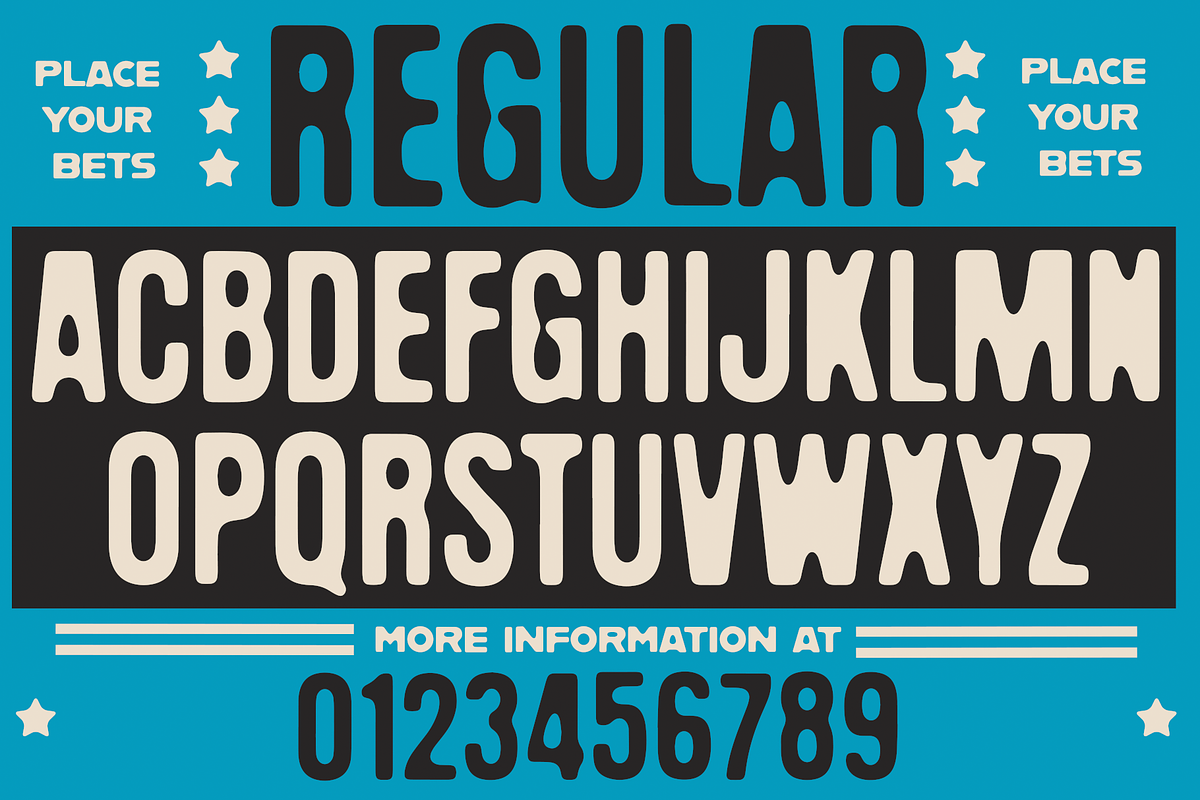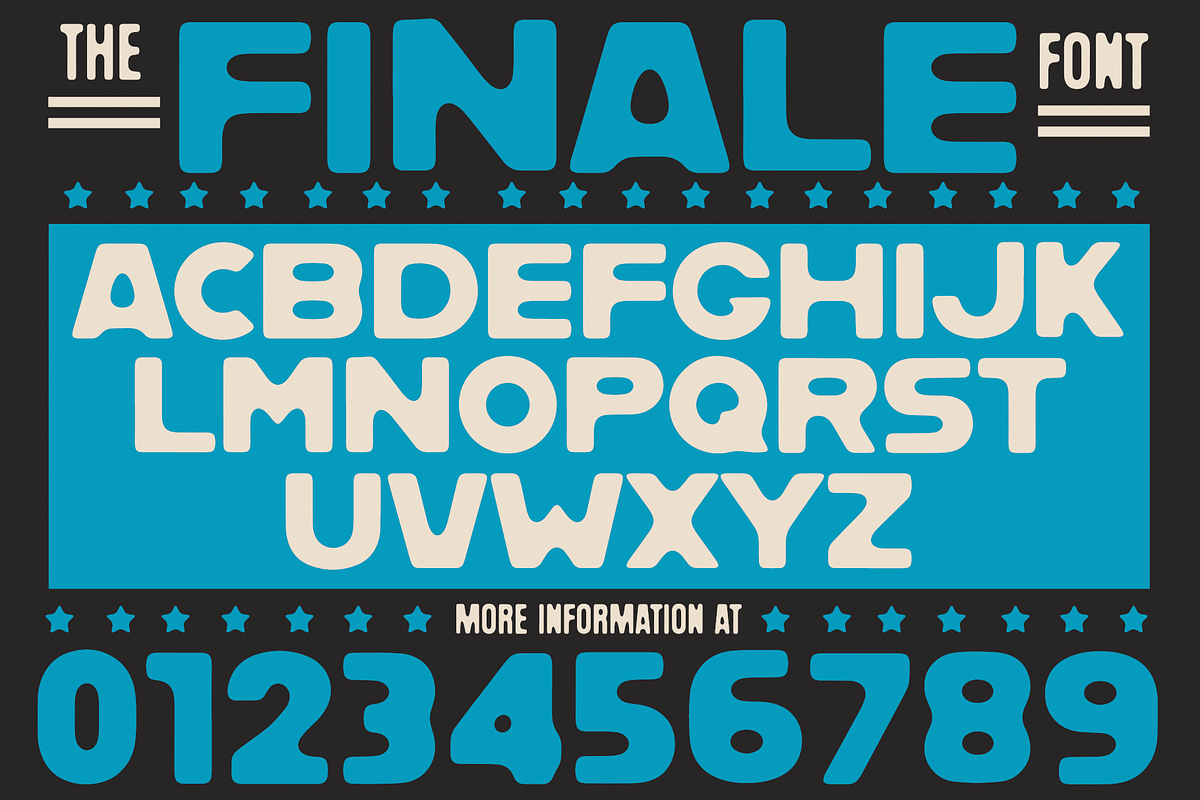
Introducing Knockout — the heavyweight champion of display fonts. Bold, powerful, and ready to deliver a visual punch, Knockout packs a punch with every character. Whether it’s posters, headlines, or branding, this font is here to dominate. Step into the ring with Knockout Regular and Finale and let your designs deliver a knockout blow!